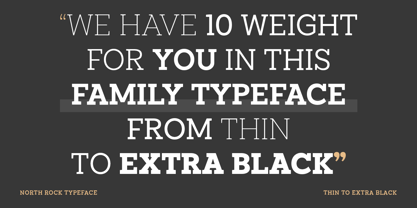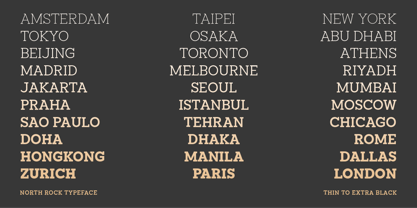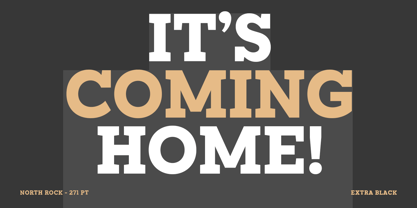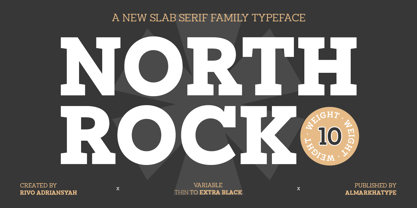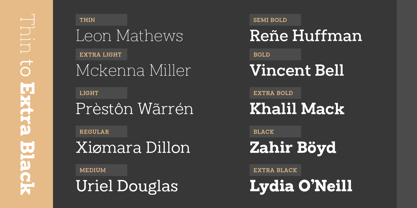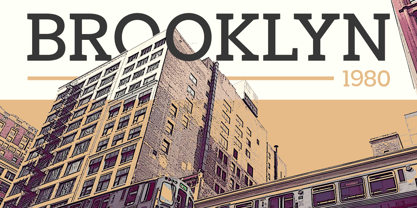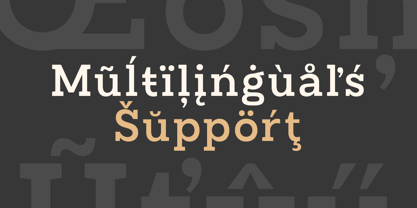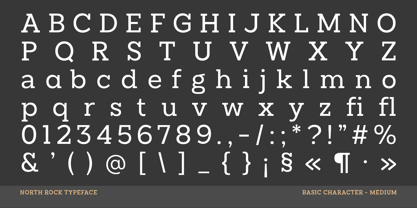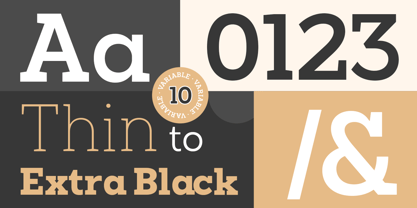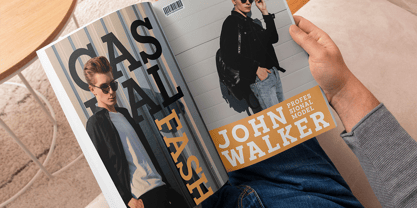
North Rock
by Almarkha Type
The North Rock Font Family was designed by Abdul Malik Wisnu and published by Almarkha Type. North Rock contains 10 styles and family package options. More about this family
North Rock is a contemporary slab serif font with 10 weights, ranging from Thin to Black. It features strong serifs that give it a modern look while preserving the overall geometric structure of the font. This font is designed to avoid the historical connotations of a typical slab serif. North Rock aims for modern visual features with sharp edges and geometric structures.
Designers: Abdul Malik Wisnu
Foundry: Almarkha Type